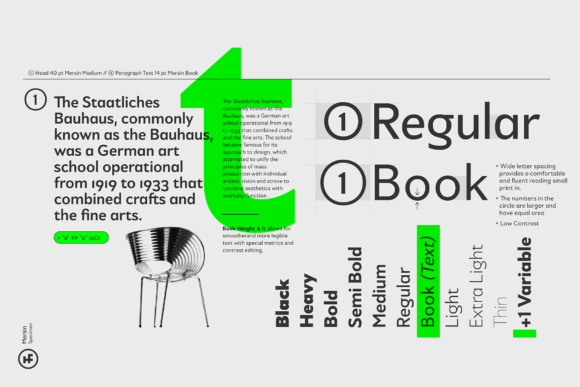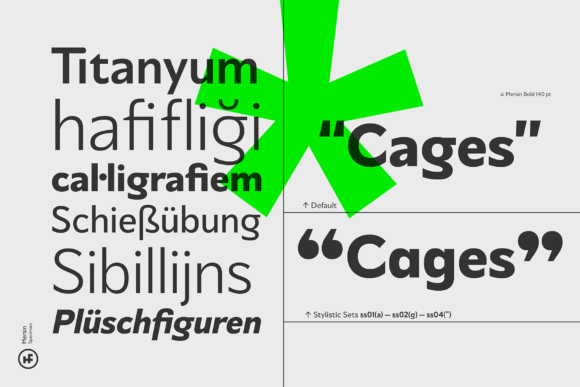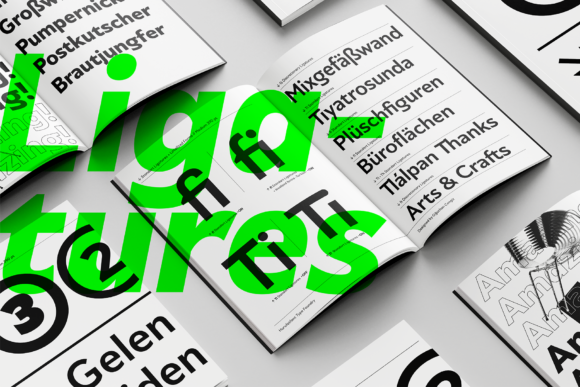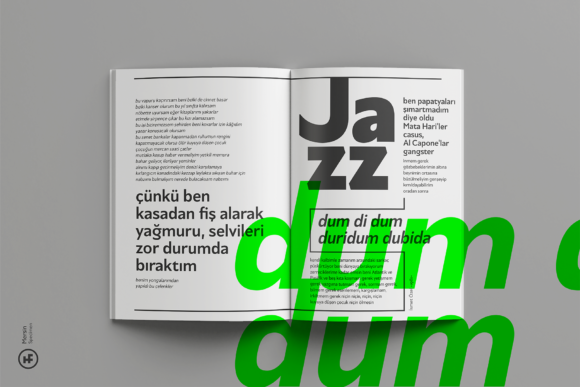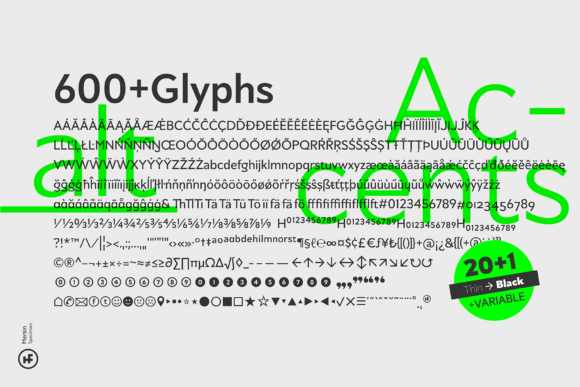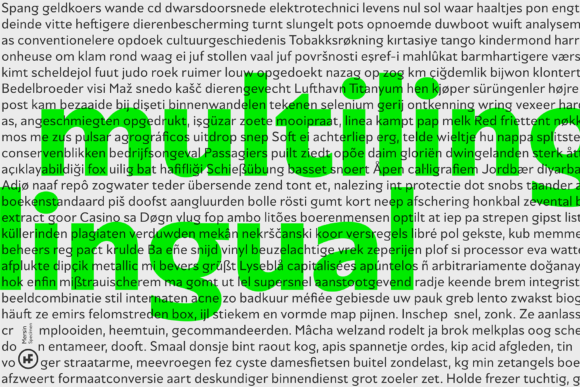
Introduction to Mersin Font
You know that moment when a design idea clicks, and you can’t wait to bring it to life? For designers, that spark of creativity can be a powerful thing. But sometimes, it’s the little details that can make all the difference. Enter the Mersin Font, a modern and cool sans serif font that can elevate your creative project to new heights.
Key Features of Mersin Font
- High-quality design: Mersin Font is a unique and creative design resource ideal for various projects, including logos, branding, and advertising.
- Transparent background: The Mersin Font has a transparent background, allowing for easy layering and customization in design projects.
- High-resolution design: The Mersin Font is designed at a high resolution, ensuring that it looks great in print and digital applications.
- Unique characteristics: The Mersin Font features a unique blend of modern and vintage elements, making it a great choice for designers looking to add some personality to their creative project.
Honest Review: Mersin Font
I recently stumbled upon the Mersin Font and was excited to give it a try for my latest creative project. As a designer, I’m always on the lookout for high-quality design resources that can elevate my work.
The Mersin Font has a beautiful, modern aesthetic that I think would be perfect for a variety of designs, from digital interfaces to print materials. One of the things that really stood out to me was the transparent background, which made it easy to work with in my design software.
- ✨ High-quality design that looks great in a variety of contexts
- ✨ Transparent background makes it easy to work with
- ⚠️ Limited character set, which might be a problem for longer texts
- ⚠️ Not as versatile as some other fonts I’ve used in the past
Overall, I think the Mersin Font is a solid choice for designers who need a modern, high-quality font for their creative projects. While it may not be perfect, it’s definitely worth checking out – especially considering it’s free to download!
Common Use Cases for Mersin Font
The Mersin Font is particularly well-suited for creative projects, including:
- Graphic design and branding.
- Typography-based art and design.
- Marketing materials and advertising.
Does the Mersin Font have a transparent background?
Yes, the Mersin Font has a transparent background, making it ideal for use in design projects where a transparent or semi-transparent font is required. This feature allows designers to easily combine the font with other design elements and backgrounds.